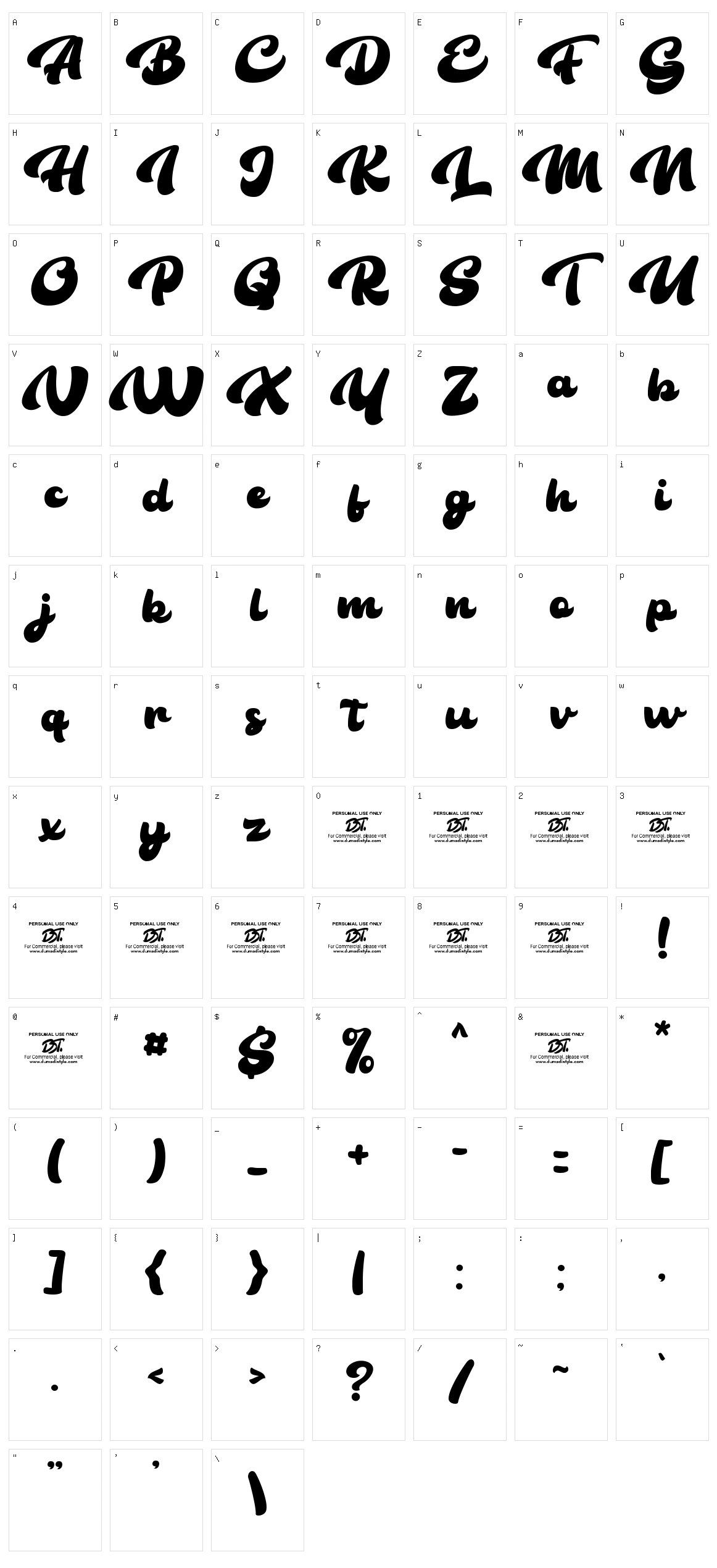
The free font The Bambank Script is carefully designed by DumadiStyle, showcasing a thoughtful balance of creativity and usability and falls under the Groovy font style. When you download the ZIP file, it contains only 761.81 KB of font files, making it lightweight and quick to download. Please review the license details below to understand permitted usage and distribution rights. If license information is not available, we recommend using this font for personal projects only or contacting the author directly for commercial usage permissions.